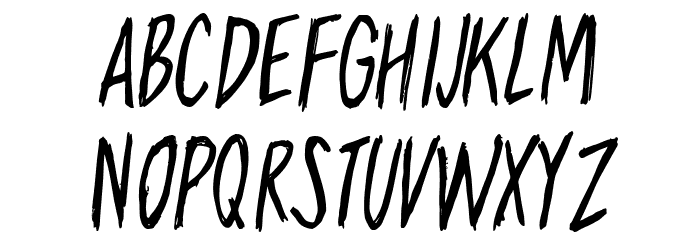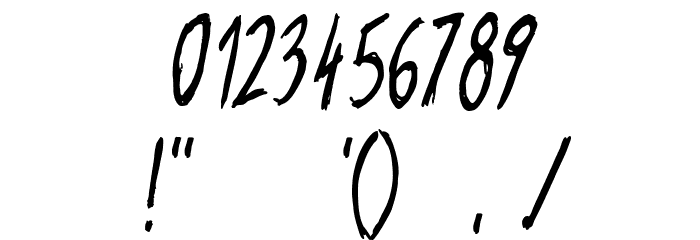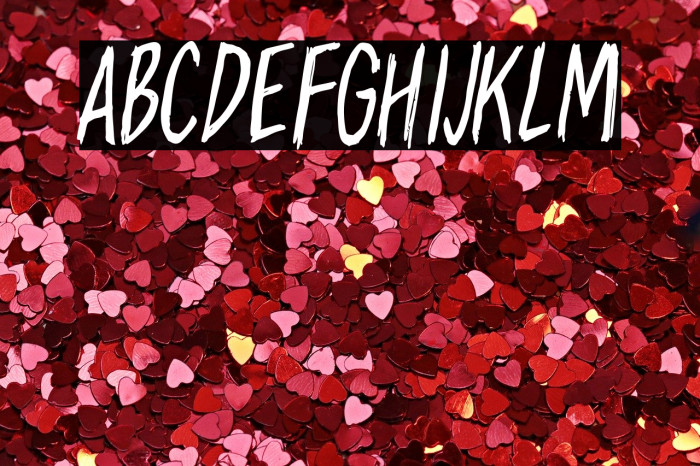
Travelling Font
This font features a dynamic and energetic handwritten style, characterized by its bold and slightly slanted letterforms. The strokes are uneven, giving it a casual and informal appearance, reminiscent of quick brush strokes. The uppercase and lowercase letters maintain a consistent style, with a playful and artistic flair. The numbers and special characters follow the same aesthetic, ensuring a cohesive look across all elements. This font's unique style makes it stand out, offering a sense of movement and personality.
A bold, handwritten font with dynamic and energetic strokes.
- Proposed Projects: Ideal for projects that require a personal touch, such as greeting cards, invitations, posters, and branding materials that aim to convey creativity and spontaneity.
- Use Case: Logos, Posters, Invitations